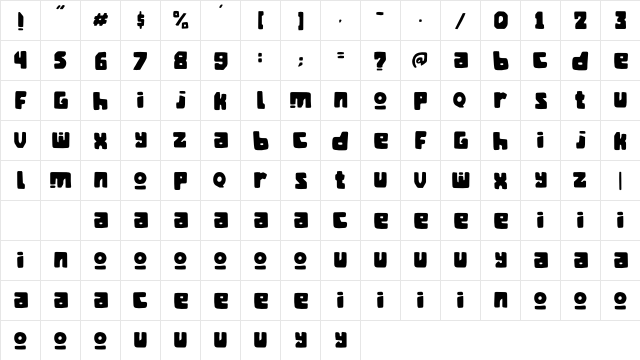
Mangan Ngombe Regular
Design Context for Mangan Ngombe Typeface
Mangan Ngombe is a composed and adaptable typeface that performs quietly and consistently across a wide range of design contexts.